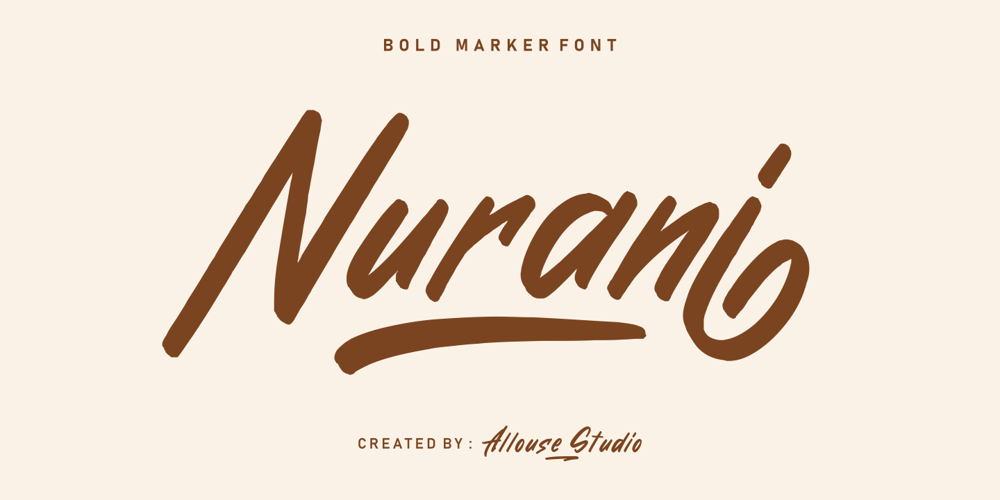
Nurani Font Family was designed by Fachrizal Yusuf and published by Allouse Studio. Nurani contains 1 styles and family package options. Nurani is a bold marker font that will bring an marker feel to your designs in need.Nurani come along with Stylistic Alternates, Underline Styles and Multi-Lingual support which will add cool impression.We highly recommend using a program that supports OpenType features and Glyphs panels like many of Adobe apps and Corel Draw, so you can see and access all Glyph variations.Nurani is perfect for any tittle, shope name or logo, this also very suitable on product packaging, branding project, magazine, social media, wedding, or just used to express words above the background.Enjoy the font, feel free to comment or feedback, send me PM or email if there are issues or queries.Thank you!